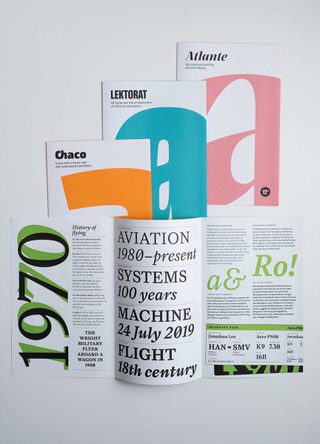
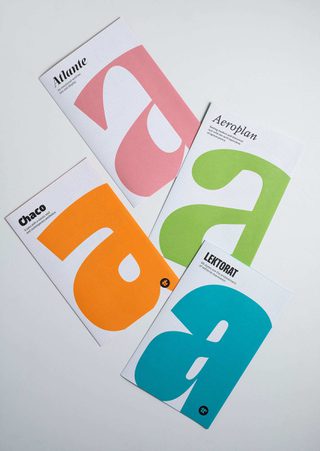
Aeroplan specimen
To mark the release of Aeroplan — an award-winning font family, including the 2021 Gerard Unger Scholarship and the 2024 ISTD Certificate of Excellence — our talented graphic designer Felicia Priscillya designed this specimen, now available in our store. Aeroplan, designed by Nina Faulhaber, is a modern interpretation of a 1916 book font, with teardrop serifs, sharp wedges, and distinctive italics that give words substance.